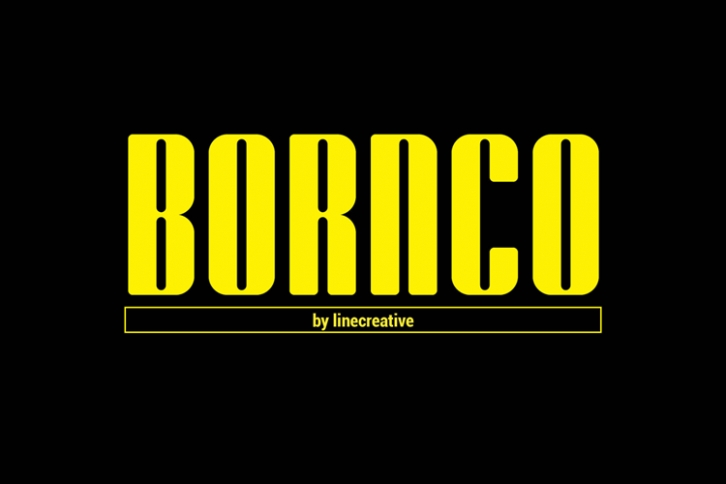
Bornco is a beautiful font that was designed by Linecreative. It's a great choice for designers and creatives who need such a font. It was released on December 1, 2018 and the file size is 19.83 MB. Bornco may give a more youthful, expressive and casual look to your project. It is a very beautiful, refined, elegant, and high-quality font.